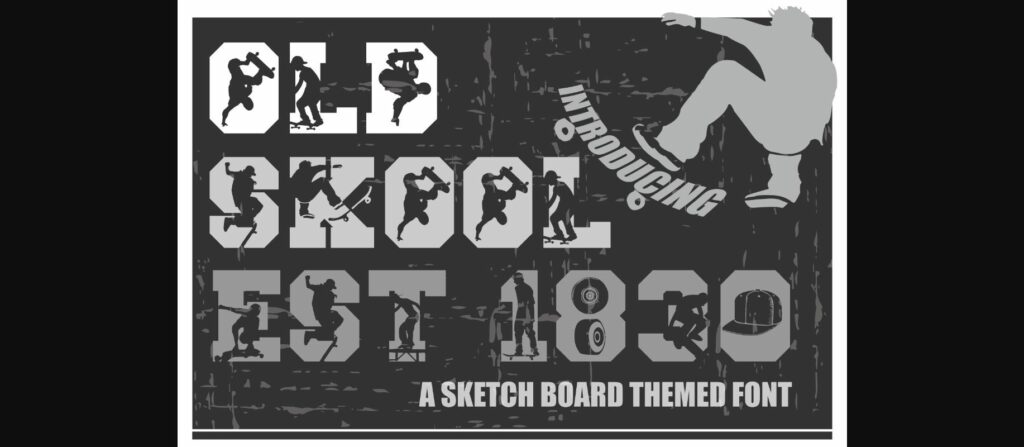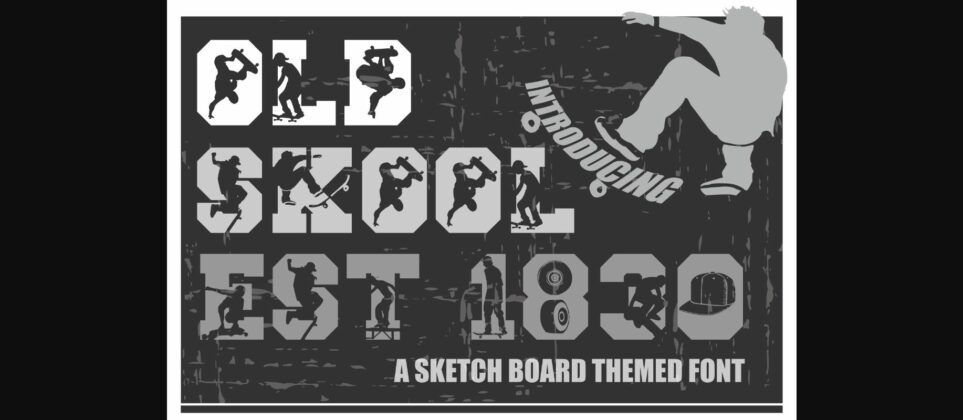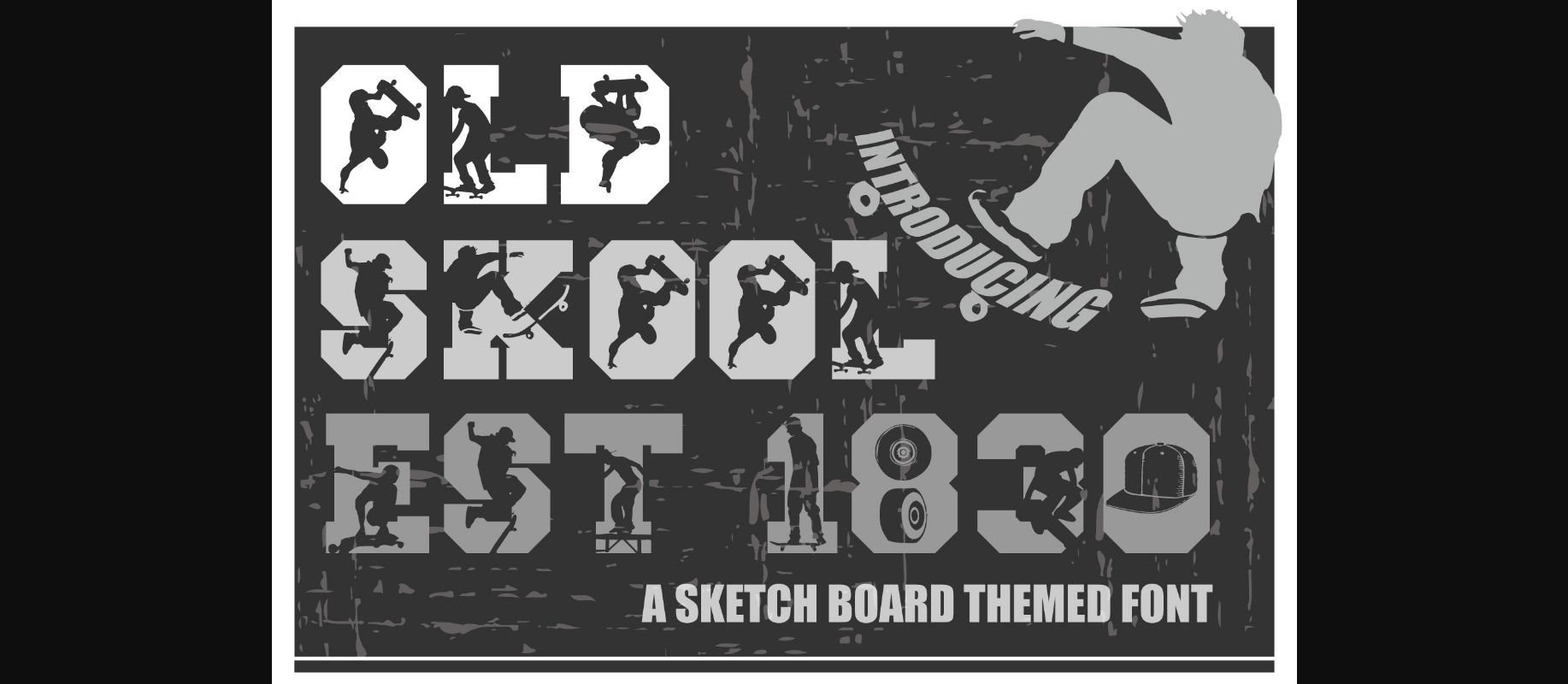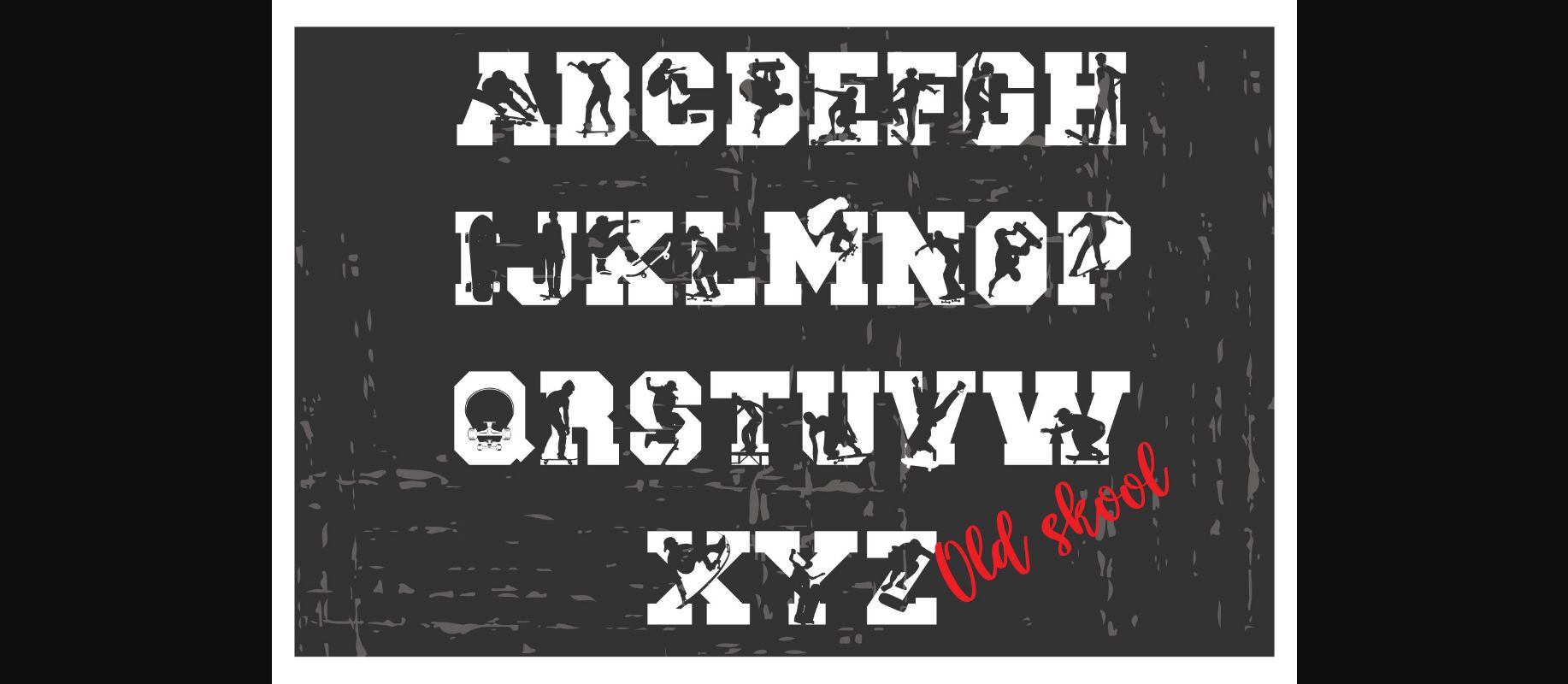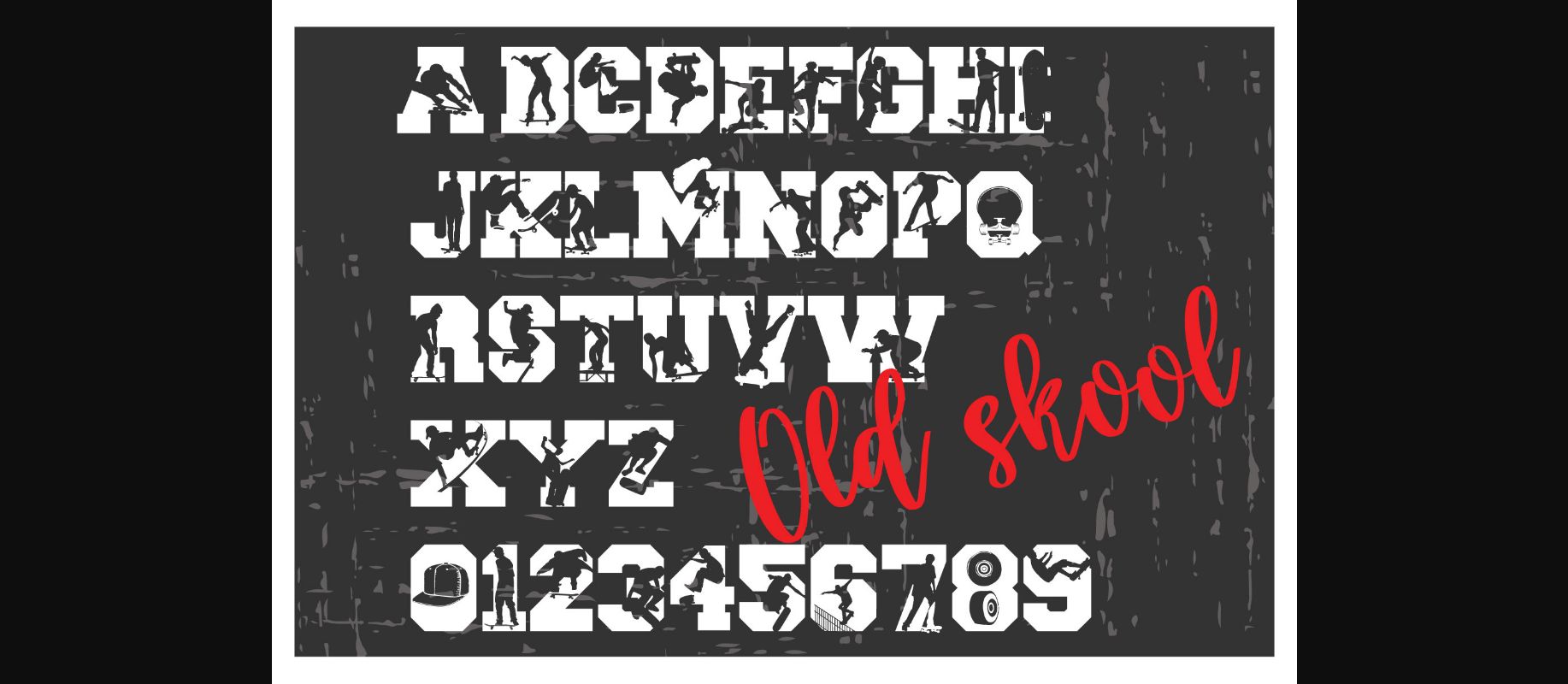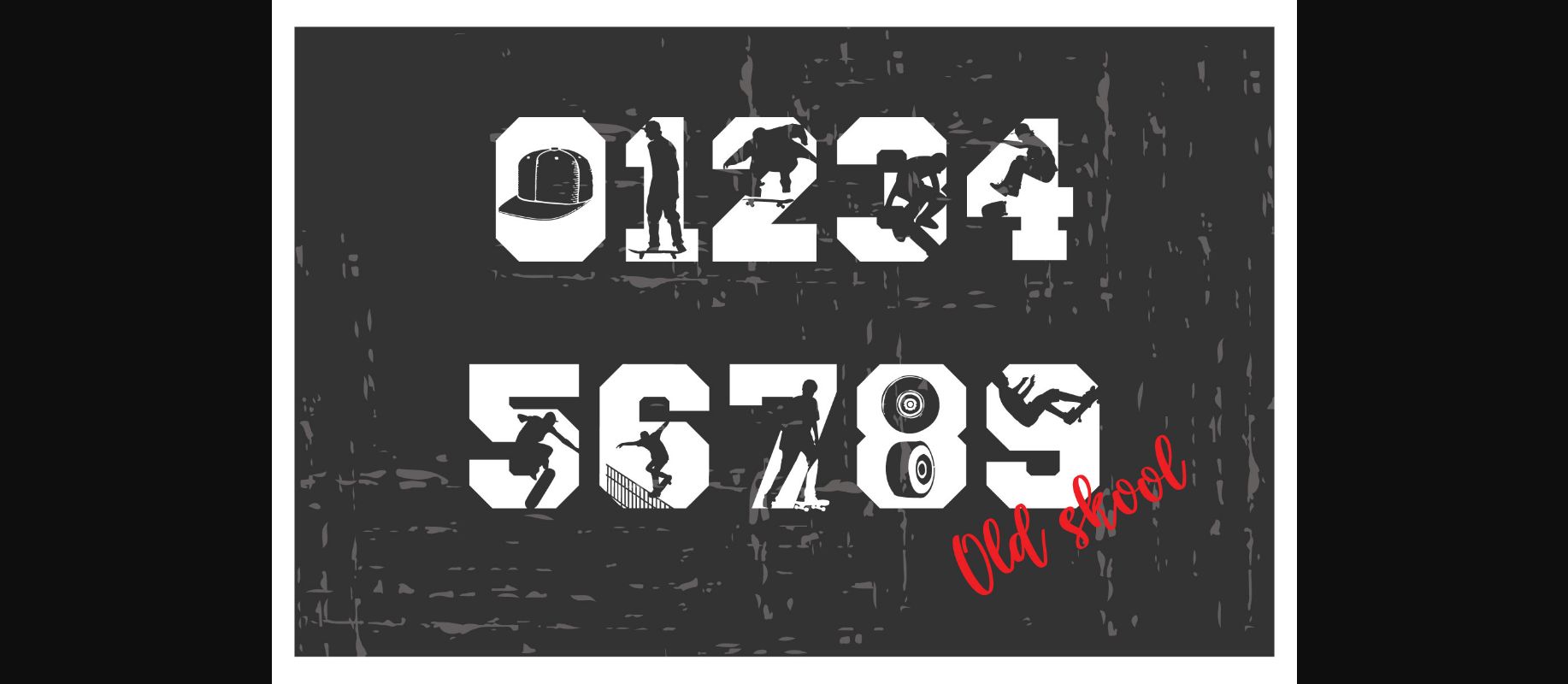
About Old Skool Est.1830 Font
Old Skool Est.1830 is an incredibly unique decorative font. Masterfully designed to become a true favorite, this font has the potential to bring each of your creative ideas to the highest level!